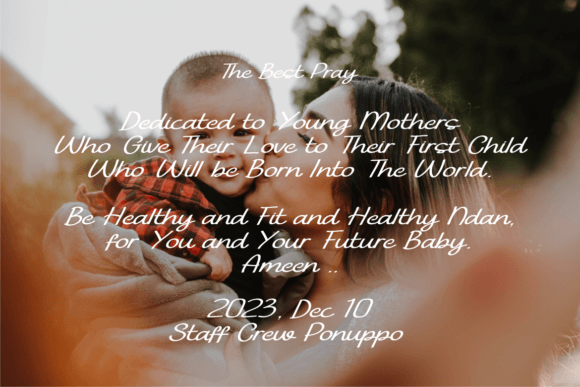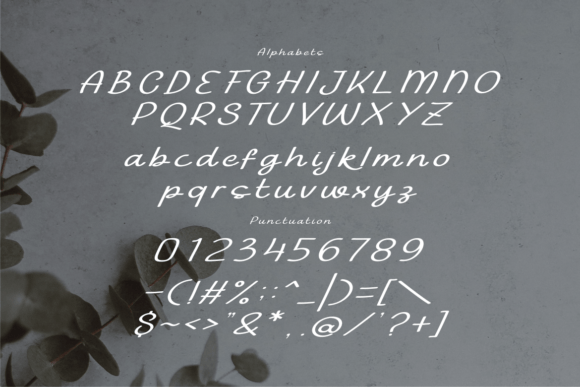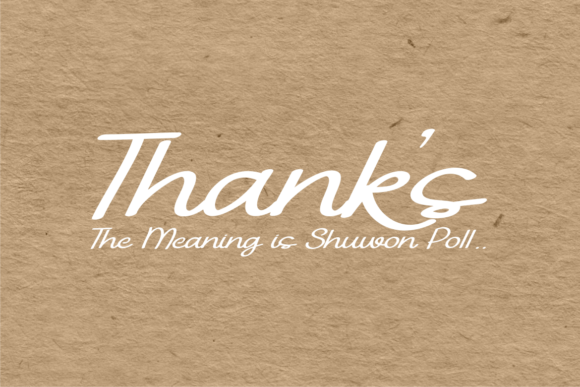
Introducing Chikofe Font: The Sweet and Friendly Handwritten Font for Your Creative Projects
Are you a designer, crafter, or DIY enthusiast looking for a font that can add a personal touch to your creative projects? Look no further than Chikofe Font! Chikofe is a sweet and friendly handwritten font that is perfect for a wide range of designs, from invitations and greeting cards to branding and packaging. Its natural and unique style makes it incredibly fitting to a large pool of designs, and the only limit is your imagination!
What Makes Chikofe Font So Special?
Chikofe Font is a one-of-a-kind handwritten font that is designed to bring a touch of warmth and personality to your designs. Its sweet and friendly style is perfect for creating a sense of approachability and connection with your audience. Whether you’re designing a logo, creating a social media graphic, or crafting a handmade project, Chikofe Font is the perfect choice.
One of the things that sets Chikofe Font apart is its unique and natural style. Unlike other fonts that can look stiff or formal, Chikofe Font has a relaxed and effortless feel that makes it perfect for designs that need to feel friendly and approachable. Whether you’re creating a design for a children’s party, a wedding invitation, or a branding campaign, Chikofe Font is sure to make your project stand out.
The Benefits of Using Chikofe Font
So why should you choose Chikofe Font for your next project? Here are just a few benefits of using this amazing font:
- Unique and eye-catching: Chikofe Font is a one-of-a-kind font that is sure to grab attention and make your design stand out.
- Versatile: Chikofe Font can be used for a wide range of designs, from invitations and greeting cards to branding and packaging.
- Easy to read: Despite its unique style, Chikofe Font is incredibly easy to read, making it perfect for designs that need to communicate a message.
- Customizable: Chikofe Font can be customized to fit your design needs, allowing you to create a truly unique look.
How to Use Chikofe Font in Your Designs
Using Chikofe Font in your designs is easy! Here are a few tips to get you started:
- Pair it with other fonts: Chikofe Font looks great when paired with other fonts, such as sans serif fonts or script fonts.
- Experiment with colors: Chikofe Font looks great in a variety of colors, from bright and bold to soft and pastel.
- Use it for headings and titles: Chikofe Font is perfect for headings and titles, where its unique style can really shine.
- Add some texture: Chikofe Font looks great with texture and patterns, adding an extra layer of depth and interest to your design.
Who is Chikofe Font For?
Chikofe Font is perfect for designers, crafters, and DIY enthusiasts who want to add a personal touch to their creative projects. Whether you’re a professional designer or a hobbyist, Chikofe Font is a great choice for anyone who wants to create unique and eye-catching designs.
Some examples of designers and crafters who might love Chikofe Font include:
- Stationery designers: Chikofe Font is perfect for creating invitations, greeting cards, and other stationery items.
- Branding experts: Chikofe Font can be used to create unique and memorable branding campaigns.
- Scrapbookers: Chikofe Font is a great choice for scrapbooking and other paper crafting projects.
- DIY enthusiasts: Chikofe Font can be used to create a wide range of DIY projects, from signs and banners to gifts and decorations.
In conclusion, Chikofe Font is a sweet and friendly handwritten font that is perfect for designers, crafters, and DIY enthusiasts. Its unique and natural style makes it incredibly fitting to a large pool of designs, and the only limit is your imagination! With its versatility, ease of use, and customizable design, Chikofe Font is a great choice for anyone who wants to add a personal touch to their creative projects.